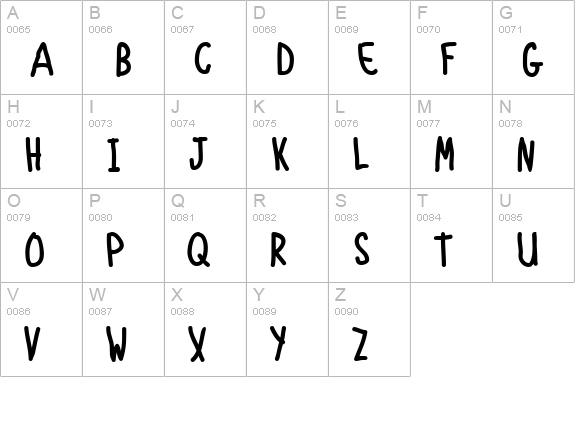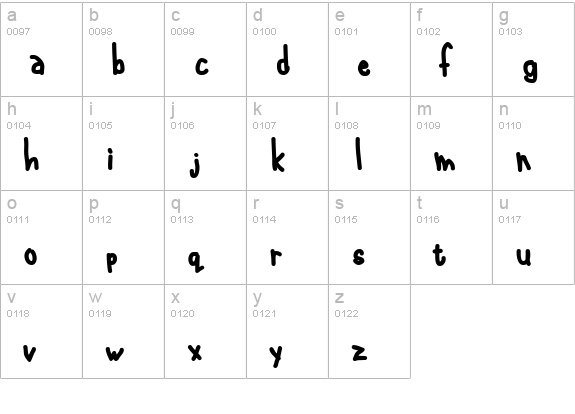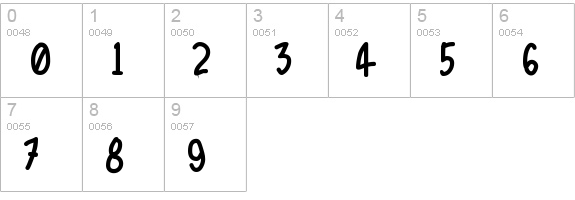
Introducing the captivating and versatile International Chunkfunk font - a true treasure for designers and typography enthusiasts alike. This font embodies the perfect balance between boldness and playfulness, making it an ideal choice for a wide range of creative projects. International Chunkfunk boasts a unique and eye-catching design that effortlessly blends chunky letterforms with funky details. Its distinct style commands attention, creating a memorable visual impact that stands out from the crowd. Whether used for headlines, logos, posters, or any other design project, this font is guaranteed to leave a lasting impression. One of the most remarkable aspects of International Chunkfunk is that it is freely available to download at FontsMarket.com. This means that designers and artists can easily access this extraordinary font without any cost, opening up endless possibilities for their creative endeavors. Its availability for free ensures that anyone, regardless of their budget, can enjoy the aesthetic and typographic excellence that International Chunkfunk offers. This font comes with an extensive character set, including uppercase and lowercase letters, numerals, punctuation marks, and special symbols. Its versatility is further enhanced by the inclusion of multiple stylistic alternates and ligatures, allowing designers to experiment and add their own personal touch to their creations. The International Chunkfunk font is meticulously crafted and optimized for both digital and print media, ensuring exceptional legibility and readability across various platforms. Its smooth curves and clean lines make it a joy to work with, while its robustness guarantees flawless reproduction even at small sizes. With International Chunkfunk, the possibilities are endless. Whether you're designing a brand identity, a magazine layout, or a website, this font will effortlessly elevate your project to new levels of creativity and professionalism. So why wait? Download the International Chunkfunk font for free at FontsMarket.com and unlock the true potential of your designs today.